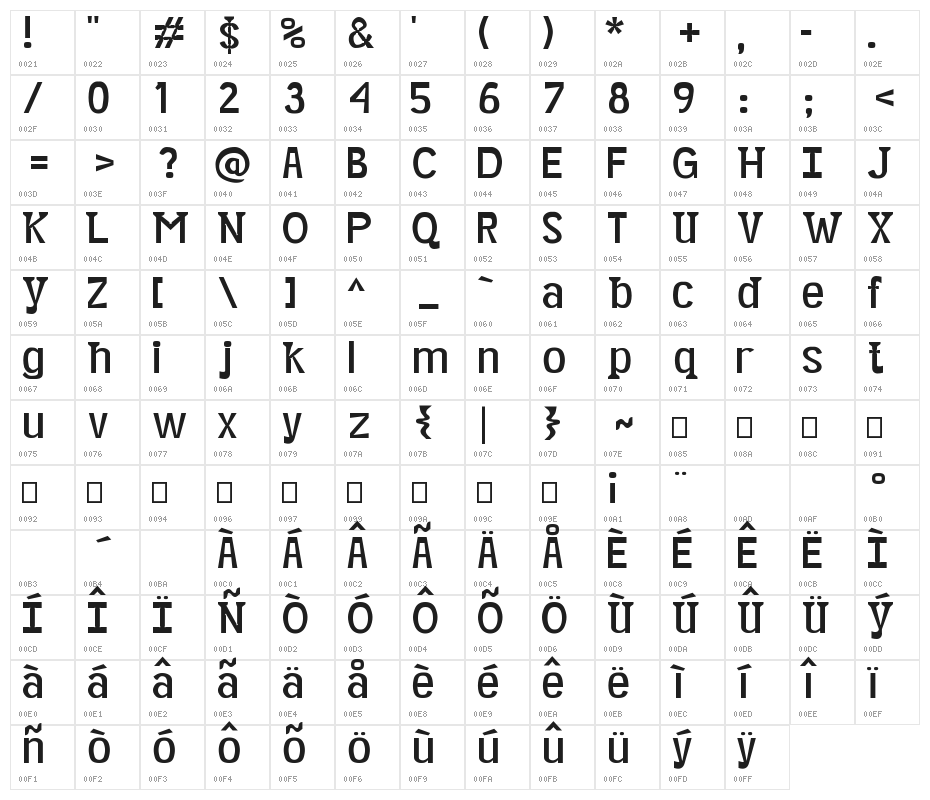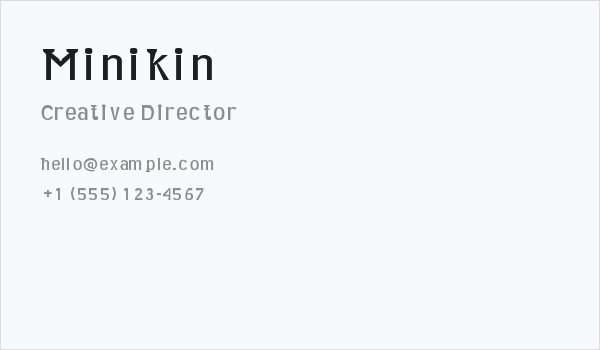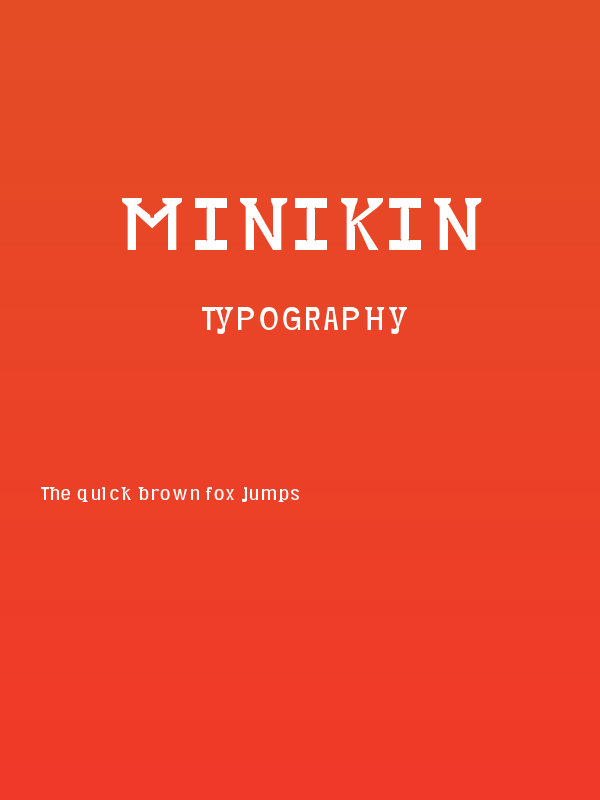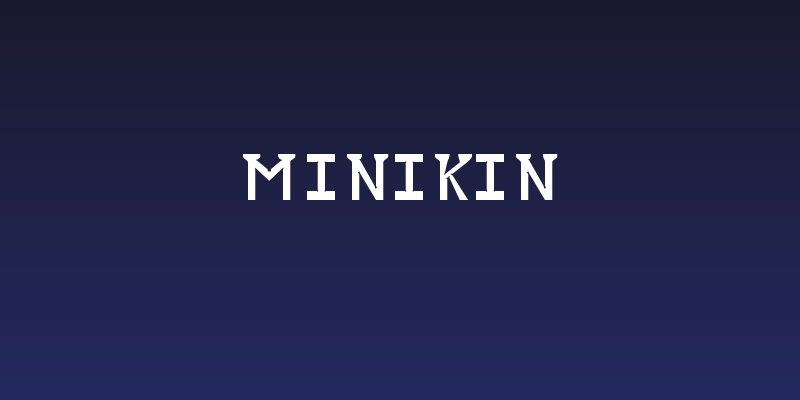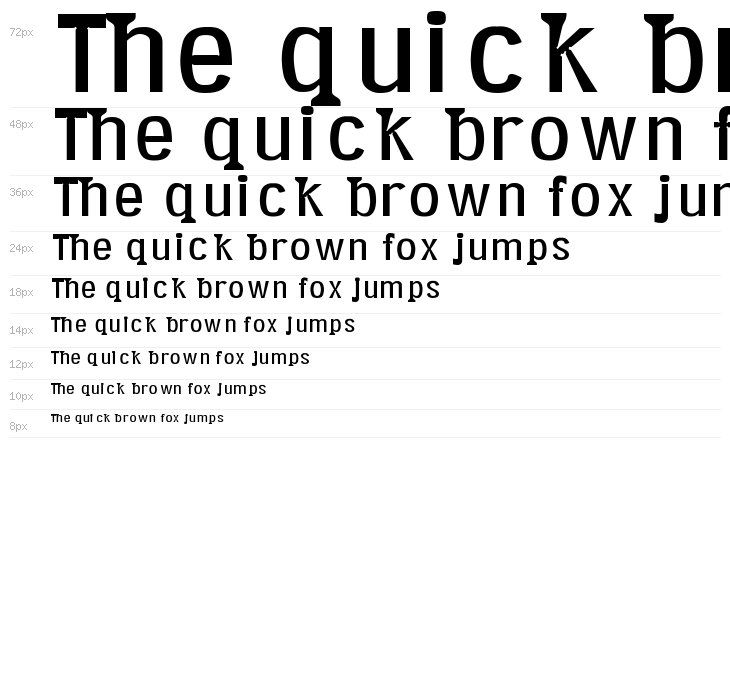
Minikin Font
Minikin Description
This font features a bold and structured design with a strong geometric influence. The characters are uniform in width, providing a monospaced appearance that is both modern and functional. The uppercase letters are particularly striking, with a consistent height and width that create a balanced and harmonious look. The lowercase letters maintain the same geometric style, offering a seamless transition between cases. The numerals are clear and easy to read, making them ideal for data presentation. Special characters are well-defined, adding versatility to the font's use. Overall, this font is perfect for projects that require a clean, modern aesthetic with a touch of boldness.
| Use Case | Headlines, Body text, Logos, Coding |
| Proposed Projects | Suitable for coding environments, technical documentation, modern branding, and digital interfaces. |